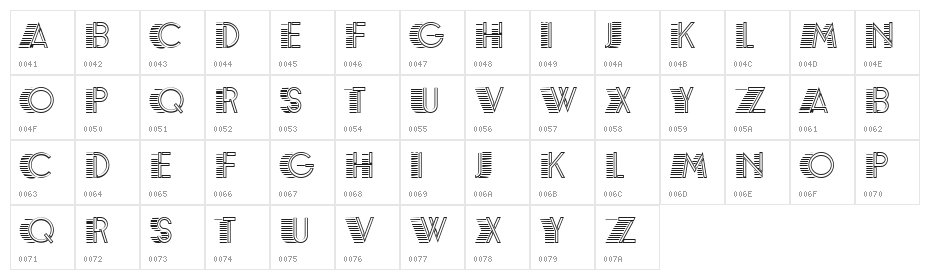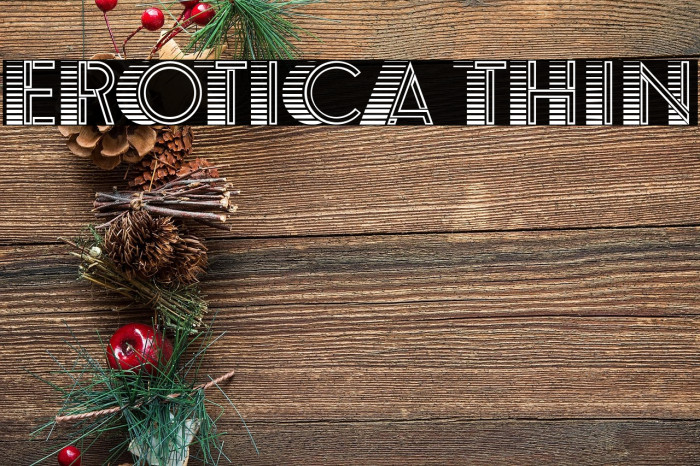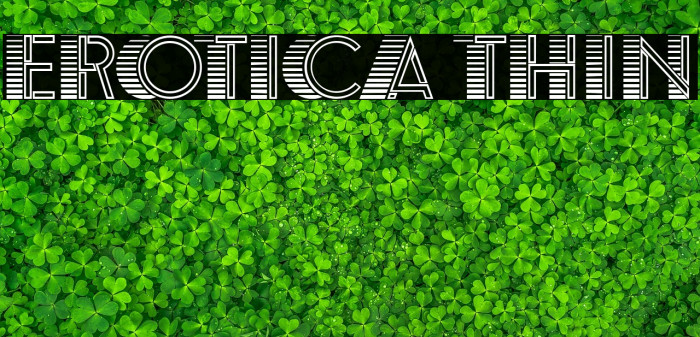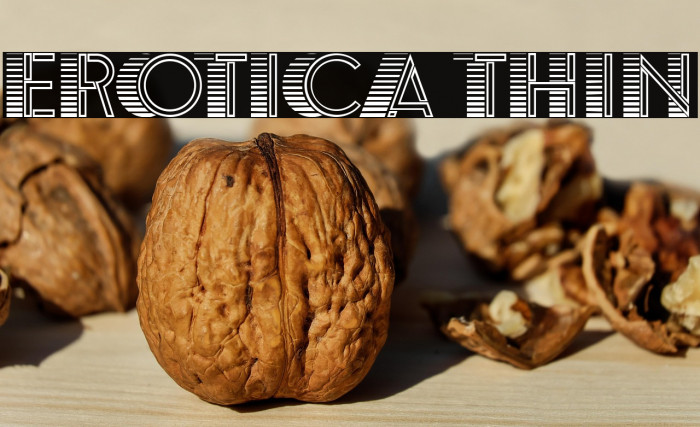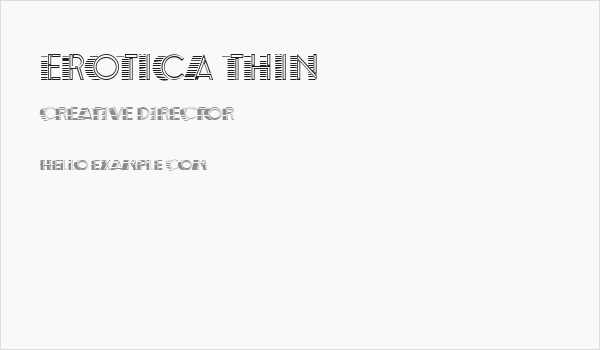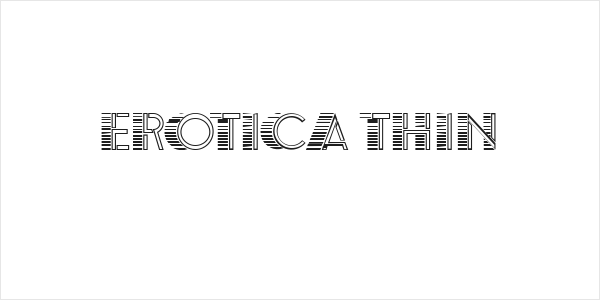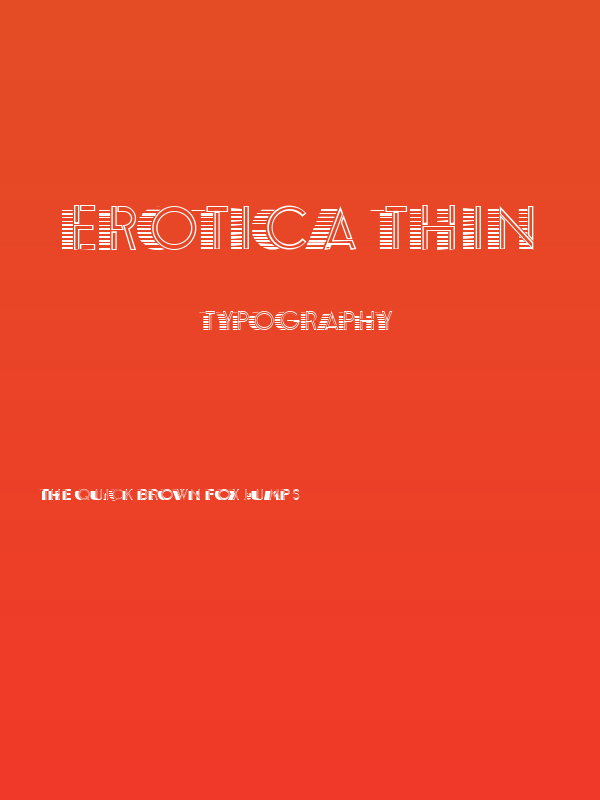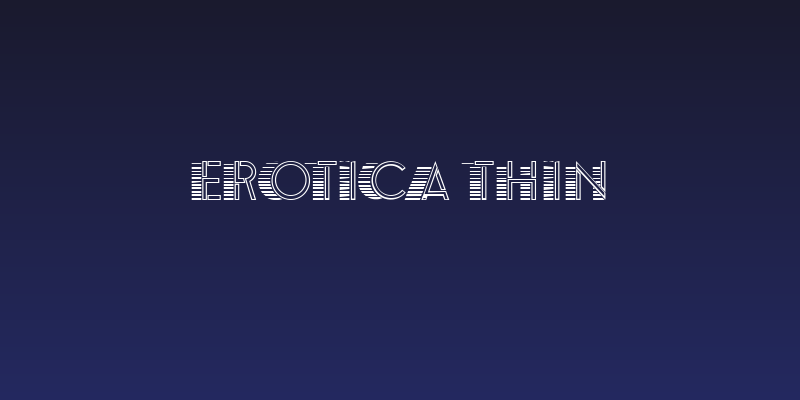
Erotica Thin Font
Erotica Thin Description
This font features a unique, decorative style characterized by horizontal lines that create a striped effect within each letter. The uppercase letters are bold and striking, making them ideal for attention-grabbing designs. The font's geometric structure is consistent, with clean lines and a modern aesthetic. It lacks lowercase letters and numerals, focusing solely on uppercase characters. The design is reminiscent of art deco influences, with a contemporary twist that adds a sense of movement and dynamism. This font is perfect for projects that require a bold statement, such as posters, headlines, and branding materials.
| Proposed Projects | Ideal for posters, headlines, branding, and any design needing a bold, decorative touch. |